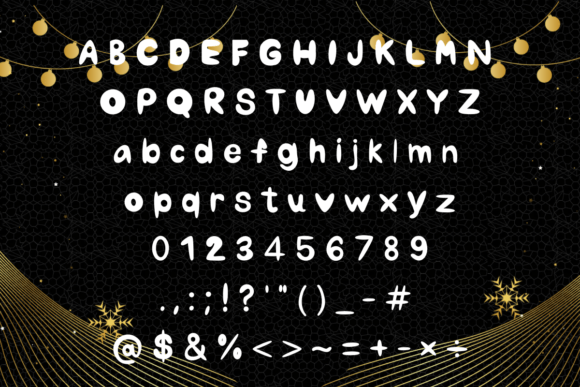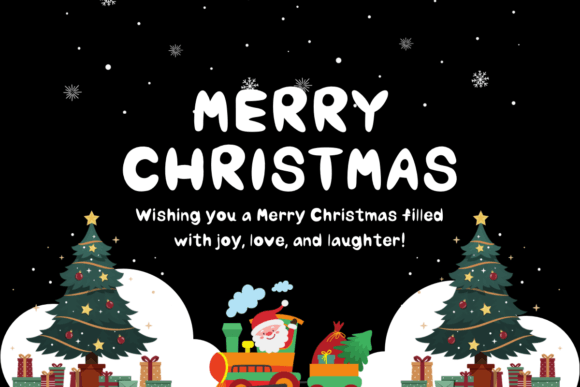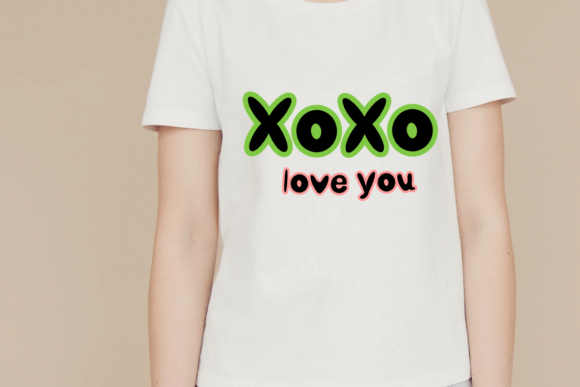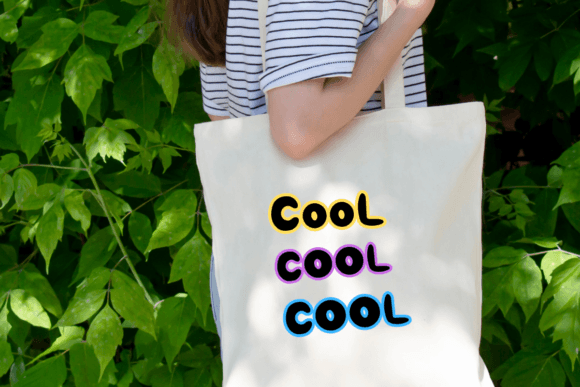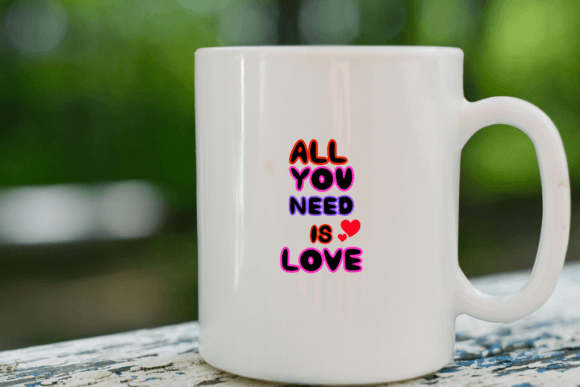
The Beauty of Black Font: A Designer’s New Best Friend
I’ll never forget the time I was working on a project for a client who wanted a handwritten font that would make their brand stand out. I scoured the internet, tried out countless fonts, but nothing seemed quite right. That was until I stumbled upon Black Font. It was love at first sight! ✨ The imperfections, the flow, the personality – it was all there. In this article, I’ll share my experience with Black Font, its features, and how to make the most of it in your designs.
- 💯 Handwritten charm: Black Font has a beautiful, organic feel to it. It’s perfect for creating a personal touch in your designs.
- ✅ Versatility: This font is not just limited to handwritten projects. You can use it for a wide range of designs, from banners to social media posts.
- 🎨 Creative freedom: With Black Font, you can experiment with different styles, from simple notes to elaborate artwork.
While Black Font is amazing, it’s not perfect. 🤔 Here are a few things to keep in mind:
- ⚠️ Legibility: At very small sizes, Black Font can be a bit tricky to read. Make sure to test it out before finalizing your design.
- ⚠️ Pairing: Black Font can be a bit overpowering when paired with other bold fonts. Balance it out with some elegant sans-serifs or scripts.
The Story Behind Black Font
Black Font was created with the intention of bringing a personal touch to digital designs. The designer wanted to create a font that would feel like it was written by hand, with all the imperfections and charm that comes with it. And so, Black Font was born – a beautiful, handwritten font that’s perfect for a wide range of creative projects.
| Font Name | Black Font |
| Author | Chonada |
Q: What is Black Font?
A: Black Font is a handwritten font designed to bring a personal touch to your designs.
Q: Is Black Font suitable for body text?
A: While Black Font is beautiful, it’s not ideal for long blocks of body text. It’s best used for headings, titles, or short paragraphs.